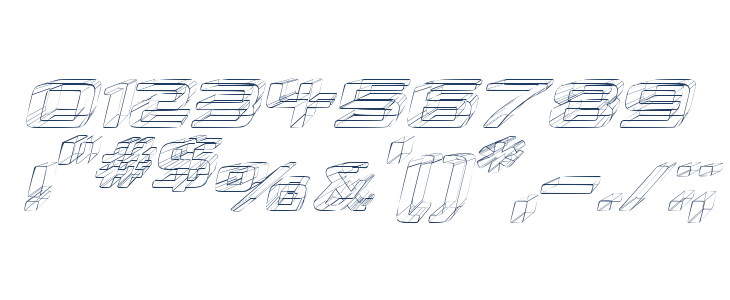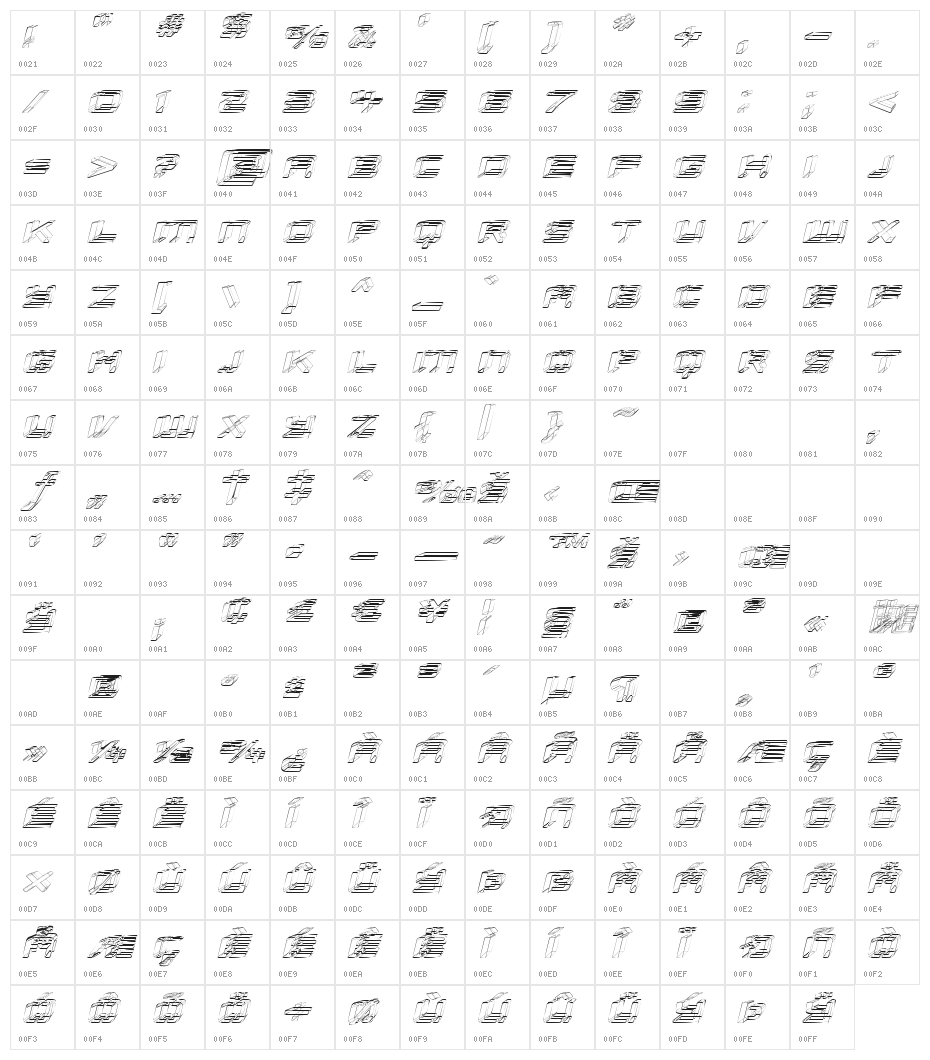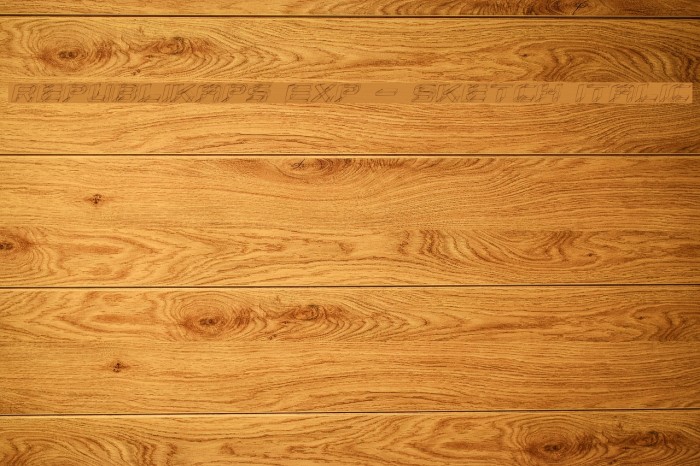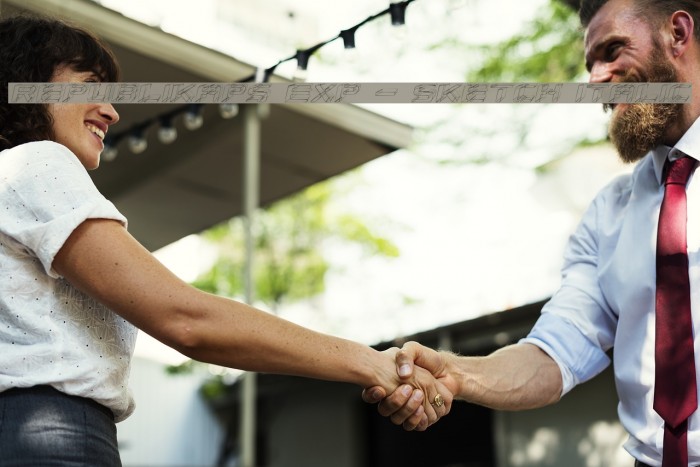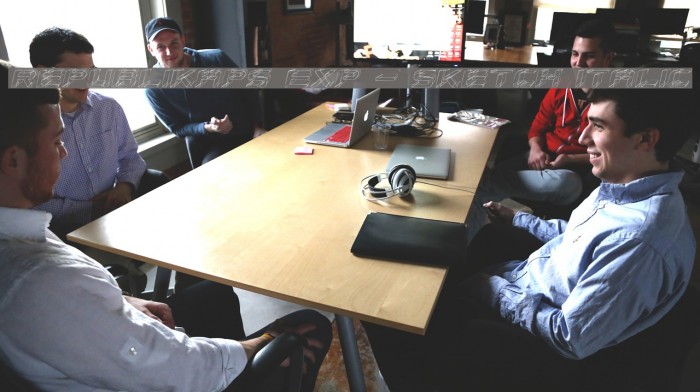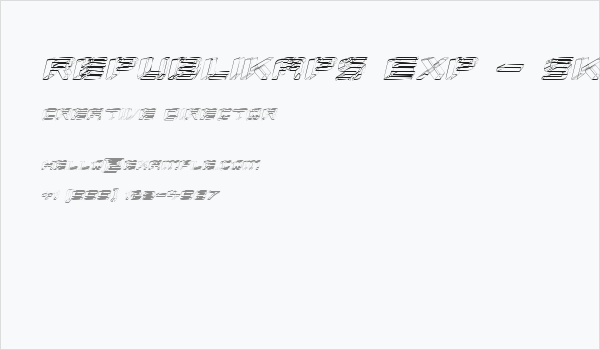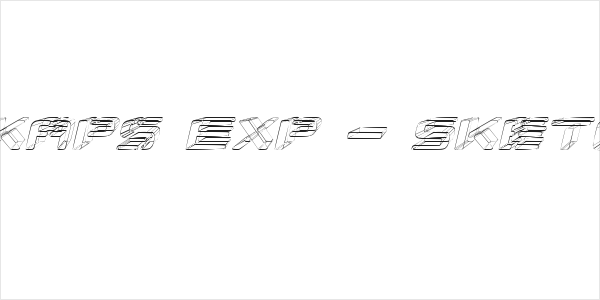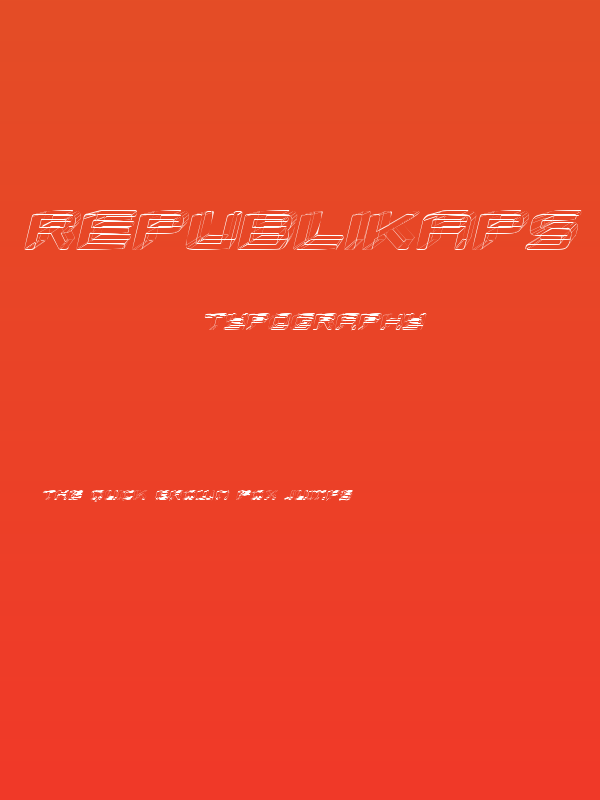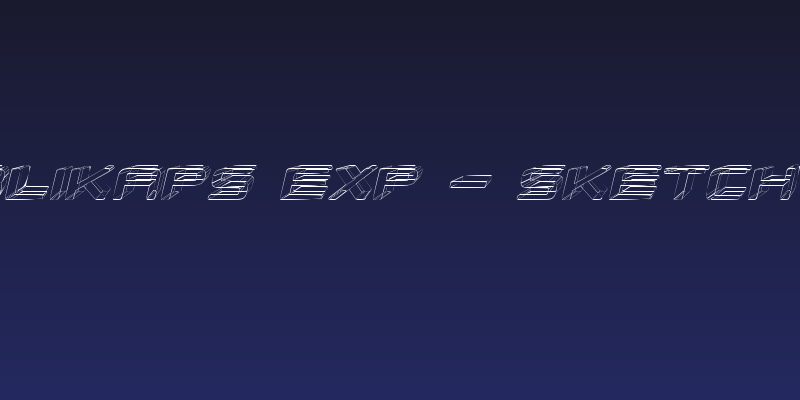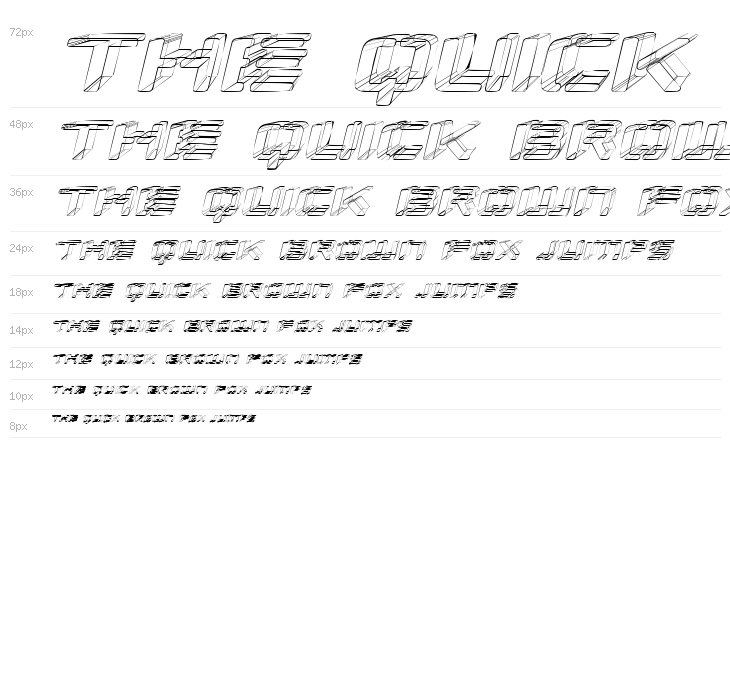
Republikaps Exp - Sketch Italic Font
Republikaps Exp - Sketch Italic Description
This font features a dynamic and sketch-like design, characterized by its italicized and expanded letterforms. Each character is outlined with a hand-drawn effect, giving it a unique, artistic appearance. The strokes are bold and angular, with a consistent slant that adds a sense of motion and energy. The font maintains a modern and edgy feel, suitable for creative projects that require a standout typeface. Its sketchy style is both playful and sophisticated, making it versatile for various design applications.
WidthExpanded
Overall StyleModern, Artistic
Proposed ProjectsIdeal for artistic posters, edgy branding, creative headlines, and modern graphic design projects.